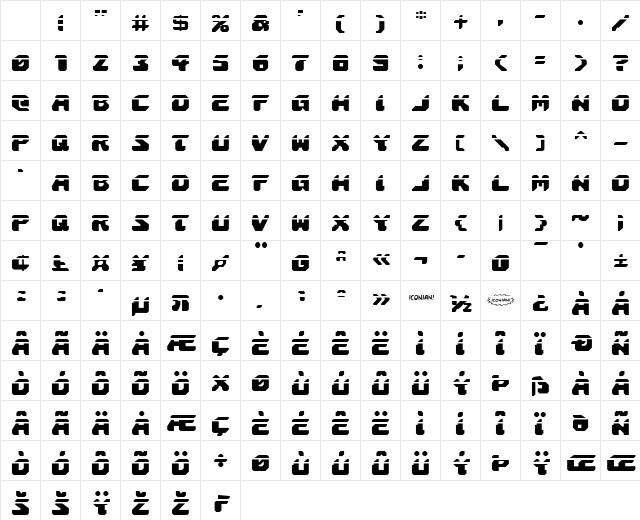
Complete Astropolis Laser Regular glyph index. Displaying only characters natively supported by Astropolis Laser Regular font.
Astropolis Laser is a composed and adaptable typeface that performs quietly and consistently across a wide range of design contexts.